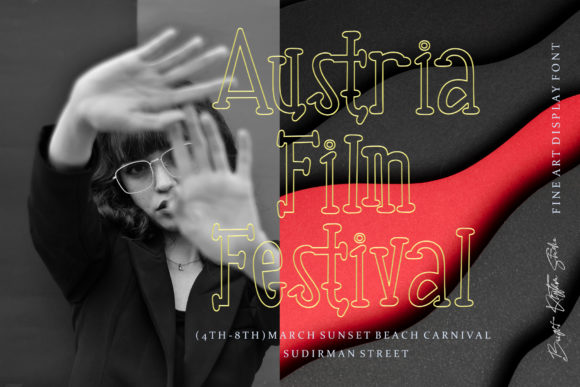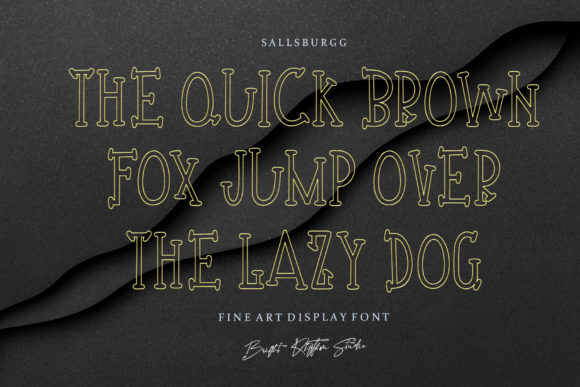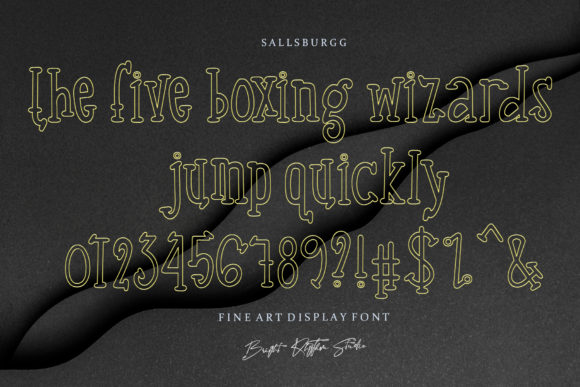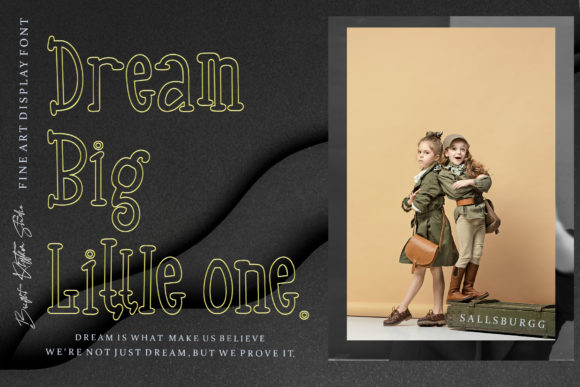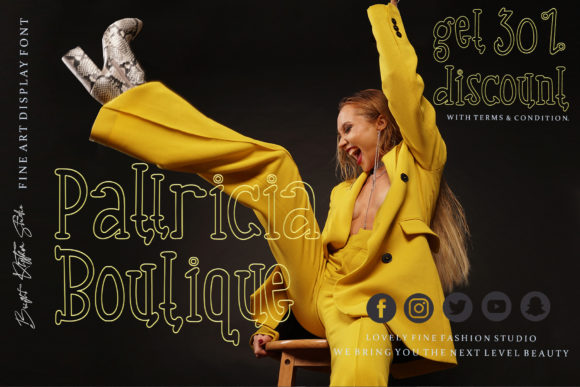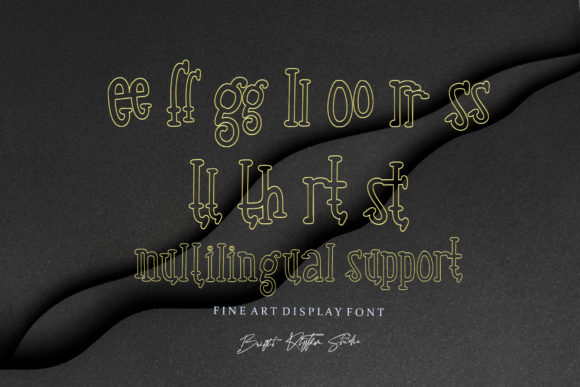
Introduction to Sallsburgg Font
Sallsburgg is a unique and fun outlined display font.
No matter the topic, this font will be an incredibly asset to your fontsโ library, as it has the potential to elevate any creation .
Key Features of Sallsburgg Font
Why Choose Sallsburgg Font?